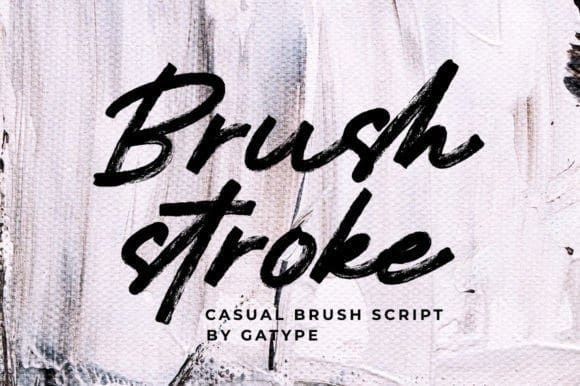
Brushstroke Font
Brushstroke Font is a unique textured brush font. Fall in love with its incredibly versatile style and use it to create gorgeous posters, beautiful stationary art, eye-catching social media posts, and much more!